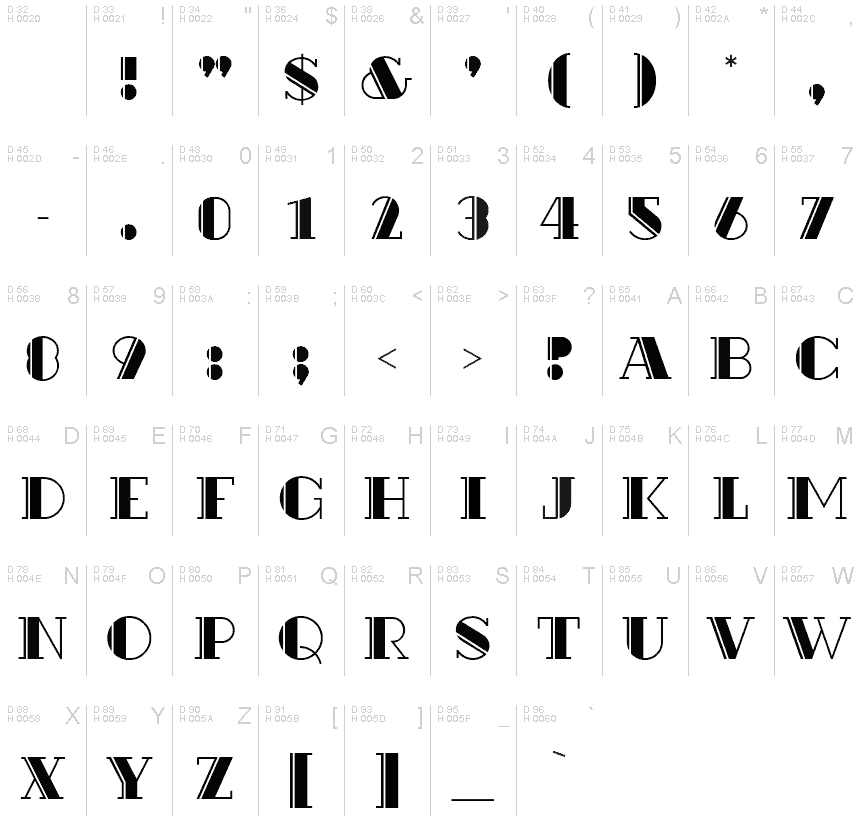
Rialto
Rialto, designed by the talented Nick Curtis, stands out as a bold display font with a distinctly retro flair. Its robust weight and striking character shapes capture the essence of a bygone era while remaining versatile enough for modern creative projects. The confident lines and curves of Rialto evoke the spirit of vintage advertising and classic poster designs, making it an excellent choice for those looking to infuse their work with a touch of nostalgia.
Whether used for eye-catching headlines, impactful branding, or decorative purposes, Rialto's stylish appearance bridges the gap between historical charm and contemporary composition.